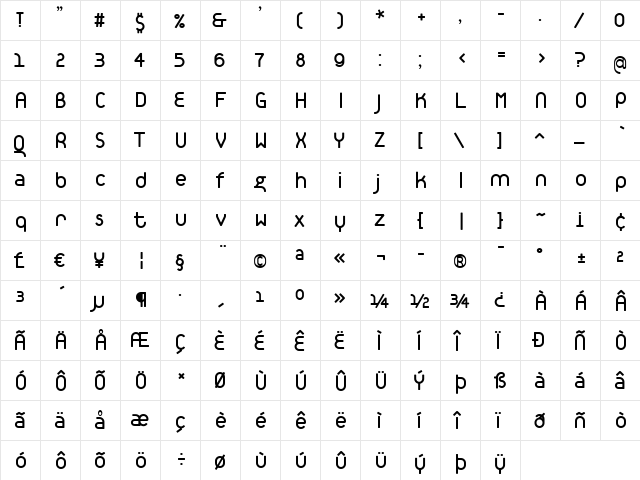
TantalusAlternative Regular
Design Context for TantalusAlternative Typeface
TantalusAlternative offers clean, dependable letterforms without strong stylistic allegiance, making it a practical choice for designers who need flexibility.
Pro Tip: Pair TantalusAlternative with a font of contrasting weight or personality to build a more expressive typographic hierarchy.